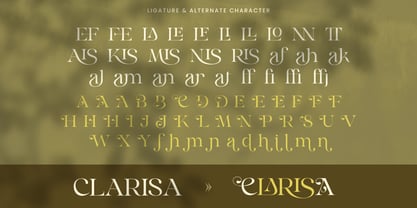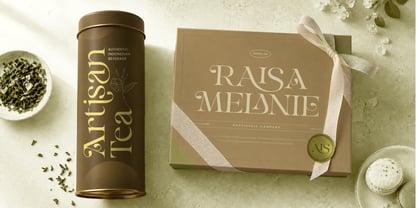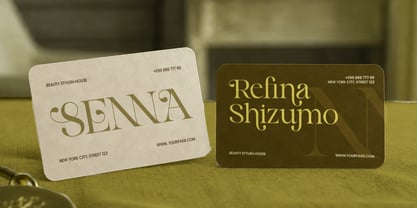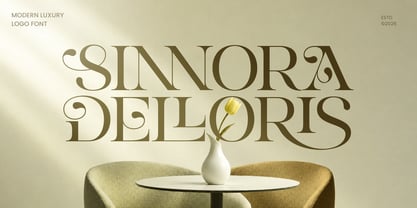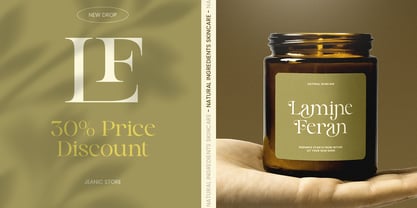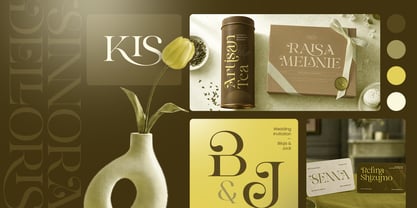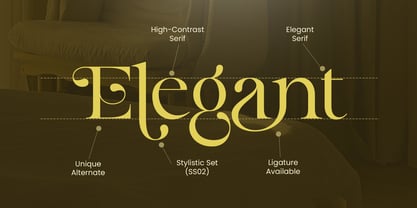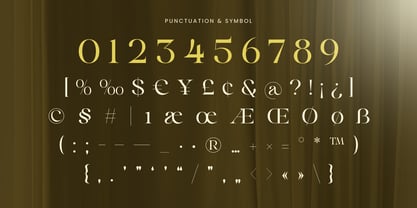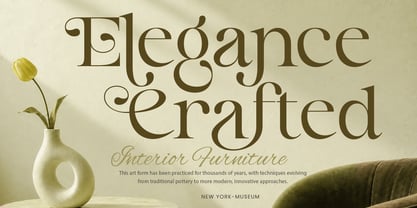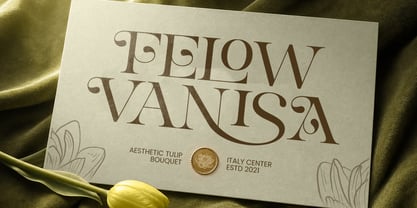
Sinnora Delloris
La familia tipográfica Sinnora Delloris fue diseñada por Zamroni Hamzah y publicada por Sensatype Studio. Sinnora Delloris contiene 1 estilos. Más información sobre esta familia
SINNORA DELLORIS is a modern luxury logo font designed to create sophisticated and memorable brand identities. With elegant letterforms, refined proportions, and a premium visual aesthetic, this typeface is perfect for luxury logos, fashion branding, editorial layouts, packaging, and high-end creative projects.
Crafted for designers who seek a balance between modern simplicity and timeless elegance, SINNORA DELLORIS delivers a polished and exclusive appearance. Its graceful details and stylish structure make every wordmark feel refined, confident, and visually distinctive.
Whether used for fashion labels, beauty brands, boutique identities, wedding stationery, lifestyle products, or premium marketing visuals, SINNORA DELLORIS brings a luxurious typographic presence across both print and digital applications.
SINNORA DELLORIS – Modern Luxury Logo Font Features
• Elegant modern design with premium luxury character
• Perfect for logos, branding, packaging, editorials, and identity systems
• Refined letterforms with sophisticated visual balance
• Ideal for fashion, beauty, wedding, lifestyle, and boutique brands
• Uppercase, lowercase, numerals, and punctuation included
• OpenType features for enhanced typographic styling
Create a luxurious and memorable identity with SINNORA DELLORIS – the perfect modern logo font for elegant branding, premium packaging, and sophisticated design. ✨👑